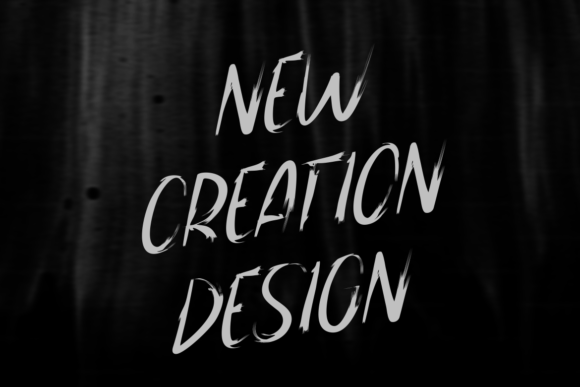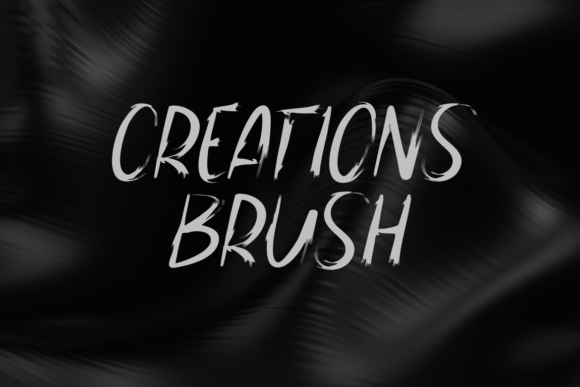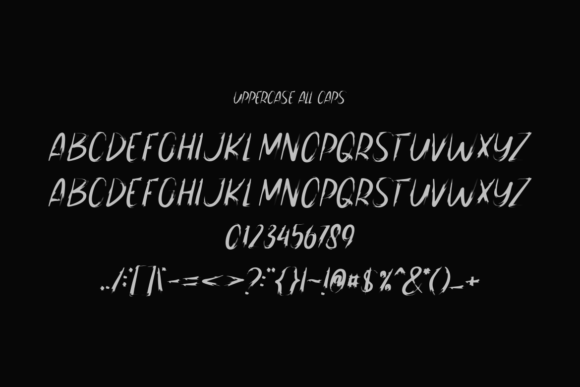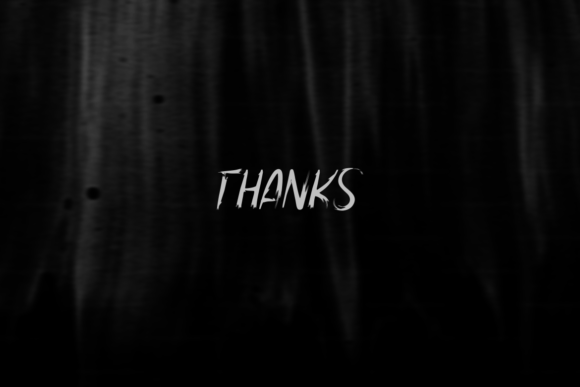
Introduction to Creations Brush Font
Have you ever been working on a creative project and suddenly, the perfect font just isn’t there? You’re trying to convey a sense of playfulness and personality, but the right words just aren’t translating onto the page. That’s where the Creations Brush Font comes in – a stylish and fun brush font that adds a personal touch to any design.
Imagine you’re designing a poster for a friend’s birthday party, and you want to make it truly special. You’ve got all the colors and graphics in place, but something’s missing. That’s when you turn to the Creations Brush Font, with its unique, hand-painted look that gives your design a one-of-a-kind feel.
Key Features of Creations Brush Font
- Unique, hand-drawn design suitable for creative projects requiring a high level of visual flair.
- Perfect for designers working on creative projects that require a personal touch, such as illustrations, graphics, and typography.
Honest Review: Creations Brush Font
I recently stumbled upon the Creations Brush Font, a free download that caught my attention for its unique, hand-drawn style. As a designer, I appreciate high-quality fonts that can add a personal touch to any creative project.
Here are some aspects that work well for this font:
- ✨ The Creations Brush Font has a beautiful, natural feel to it, making it perfect for projects that require a touch of human imperfection.
- ✨ The font is incredibly versatile and can be used for a wide range of creative projects, from branding to editorial design.
- ⚠️ The font may not be suitable for large-scale or professional projects due to its more casual, hand-drawn nature.
- ⚠️ Some users may find the font’s weight and style inconsistent, which can be a drawback for those who prefer more uniform typography.
Overall, I’d say the Creations Brush Font is a great design resource for creative projects that require a personal, handmade touch. While it may not be perfect for every project, it’s a high-quality, free download that’s definitely worth exploring.
Experiment with different font sizes, colors, and combinations to create unique designs. Use the font in conjunction with other design resources, such as images or graphics, to add depth and interest to your project.
The Creations Brush Font is ideal for creative projects, such as:
- Illustrations and artwork